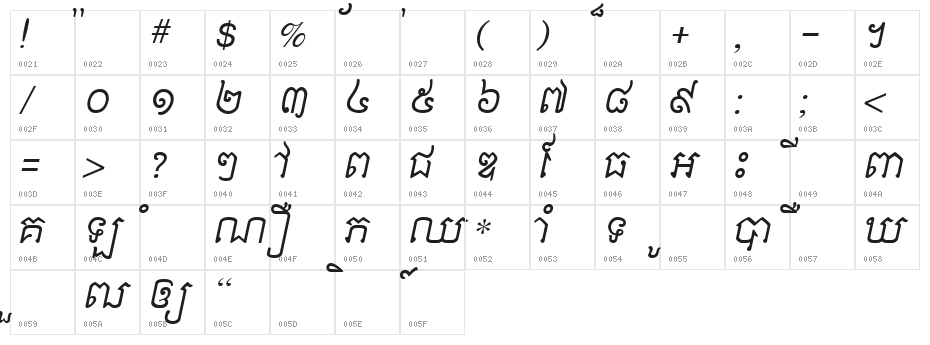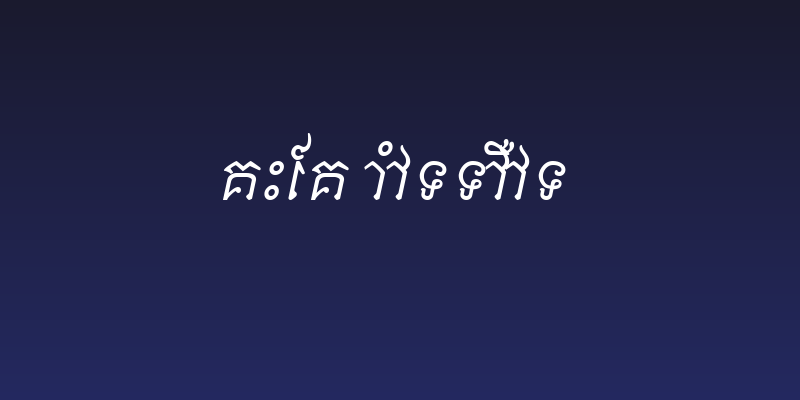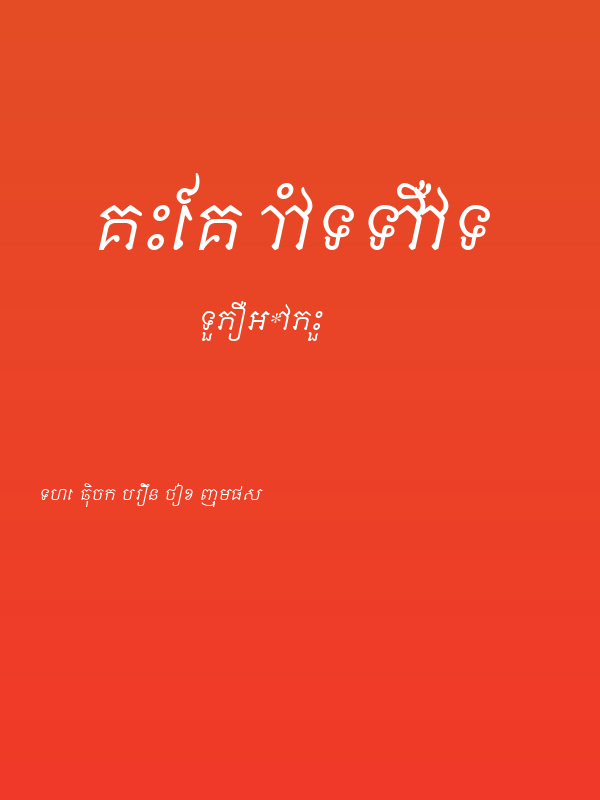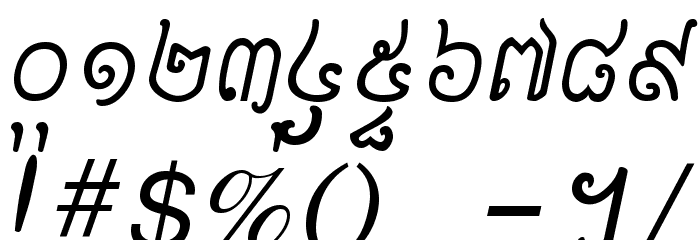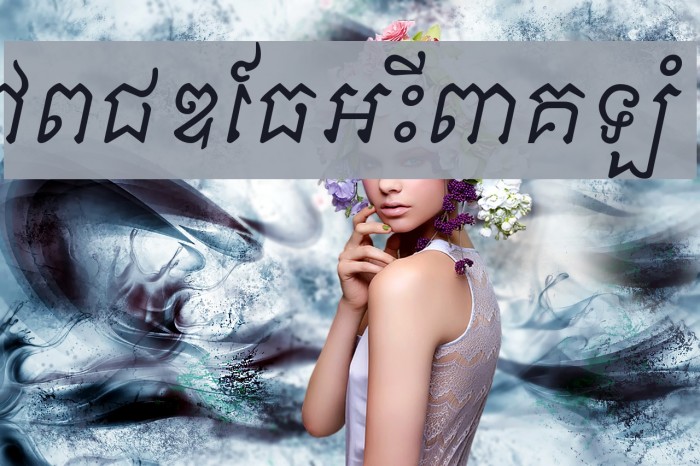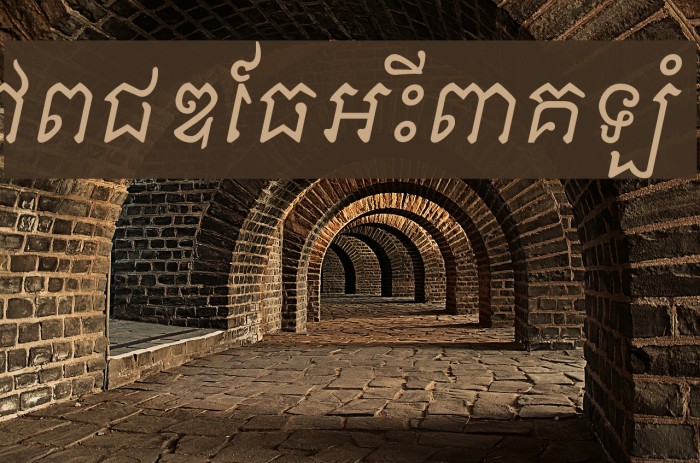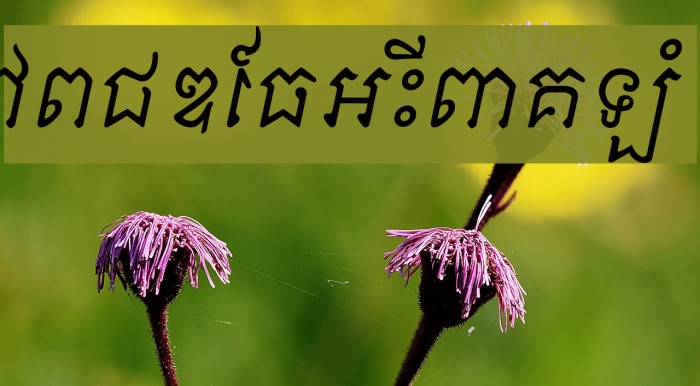
Khek Sattawat Font
Khek Sattawat Description
This font features a unique and flowing script style that combines elegance with readability. The characters are designed with smooth curves and a slight slant, giving it a handwritten appearance. The strokes vary in thickness, providing a medium contrast that enhances its visual appeal. The font includes a full set of uppercase and lowercase letters, numbers, and a variety of special characters, making it versatile for different uses. Its distinct style is reminiscent of traditional calligraphy, yet it maintains a modern touch suitable for contemporary designs.
| Use Case | Headlines, Logos, Invitations |
| Proposed Projects | Ideal for wedding invitations, greeting cards, branding projects, and elegant packaging designs. |